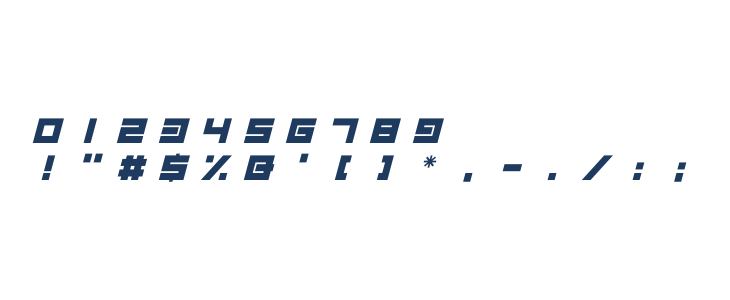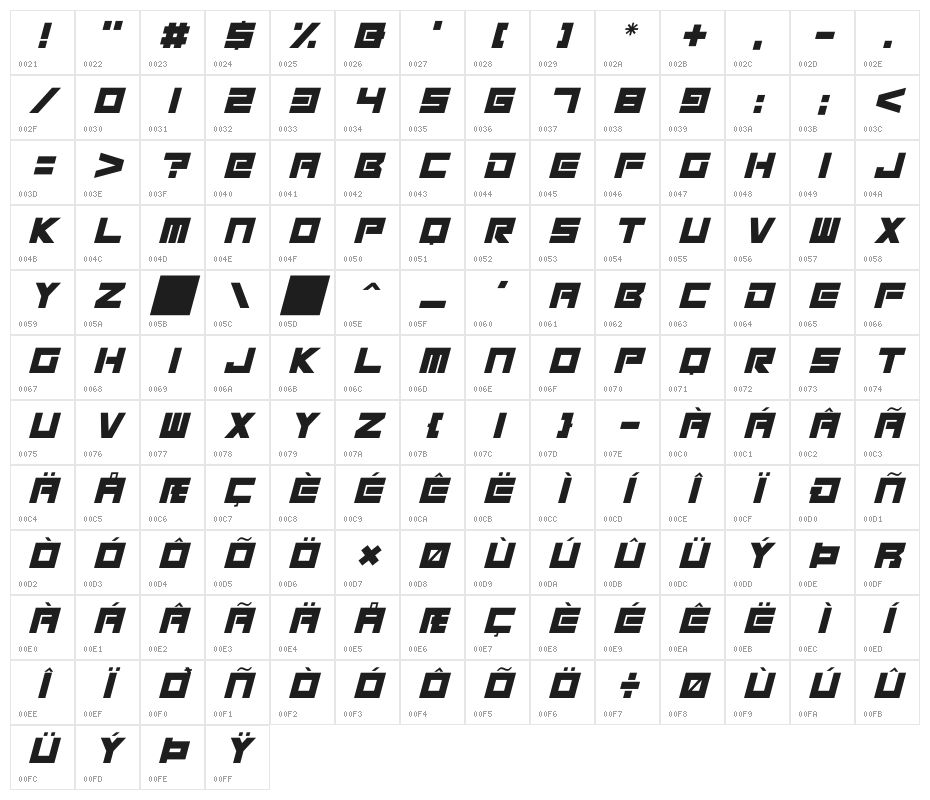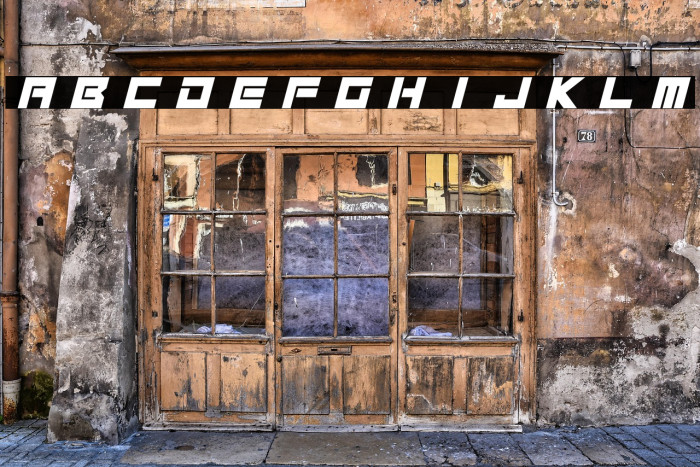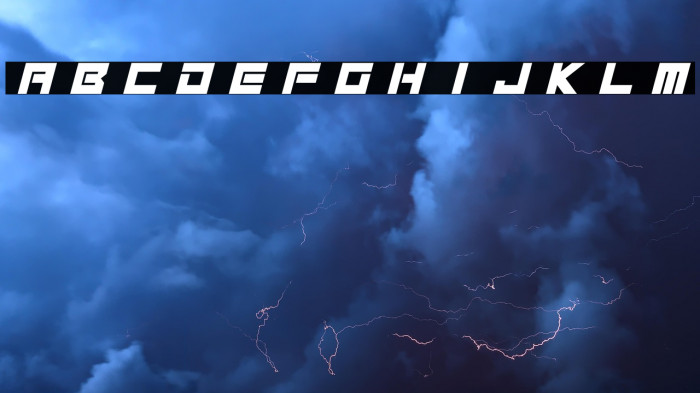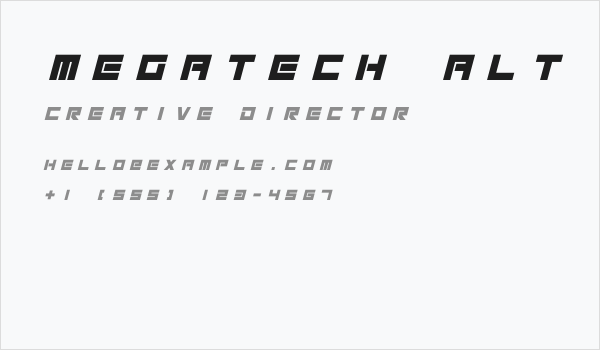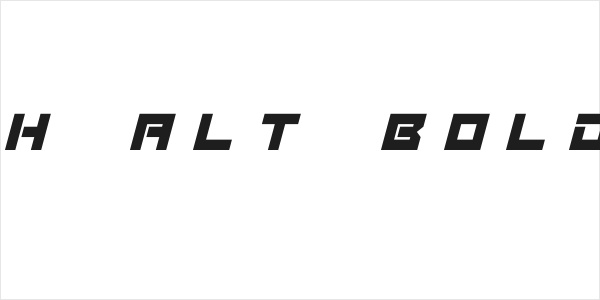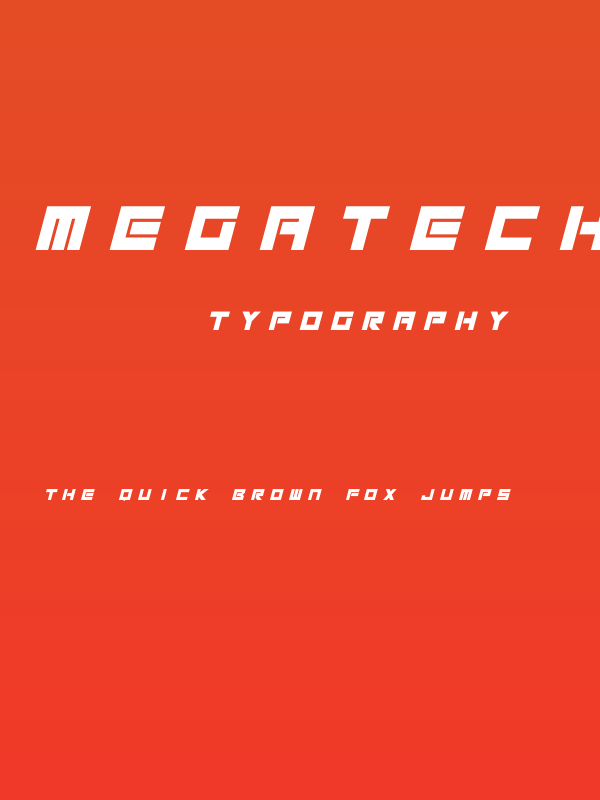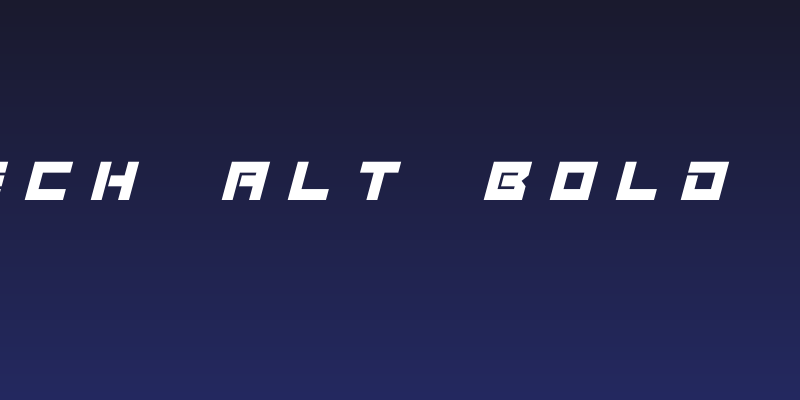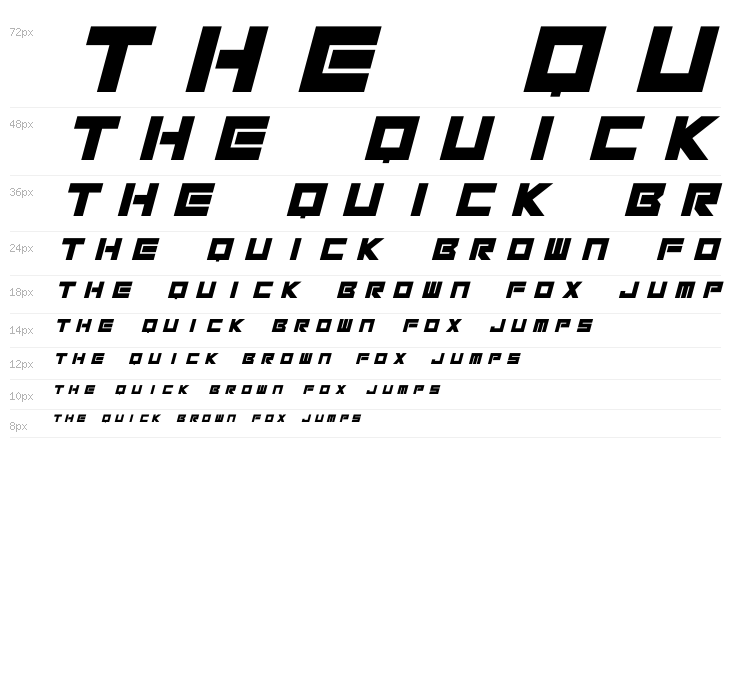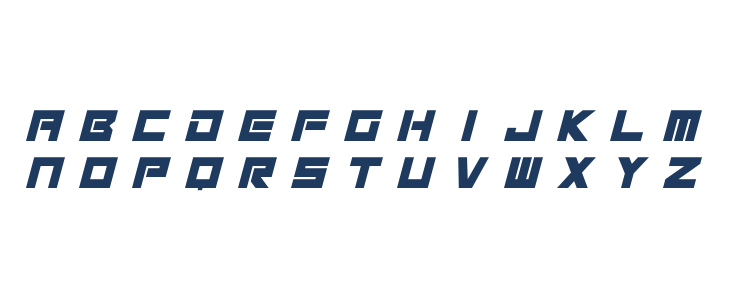
Megatech Alt Bold Italic Font
Megatech Alt Bold Italic Description
This font features a bold and italicized style with a futuristic and angular design. The characters are sharply cut with a distinct geometric influence, giving it a modern and tech-inspired appearance. The uppercase and lowercase letters maintain a consistent style, with slanted edges and a dynamic forward-leaning posture. The numerals and special characters follow the same design principles, ensuring uniformity across all glyphs. This font's bold weight and italic slant make it stand out, ideal for projects that require a strong, contemporary look.
| Proposed Projects | Ideal for tech branding, sci-fi movie posters, video game titles, and modern digital interfaces. |